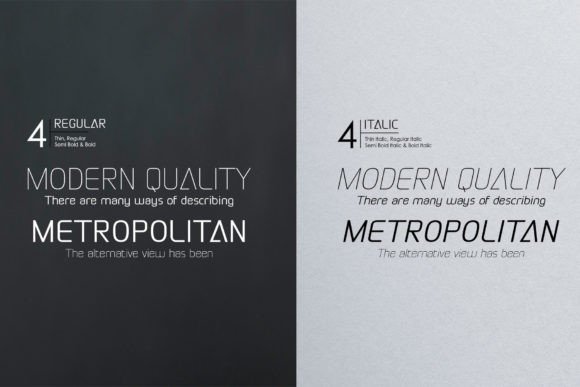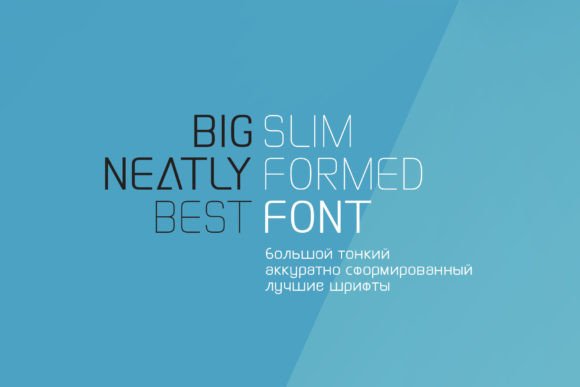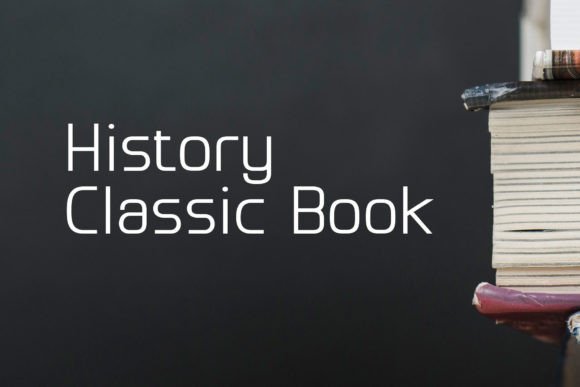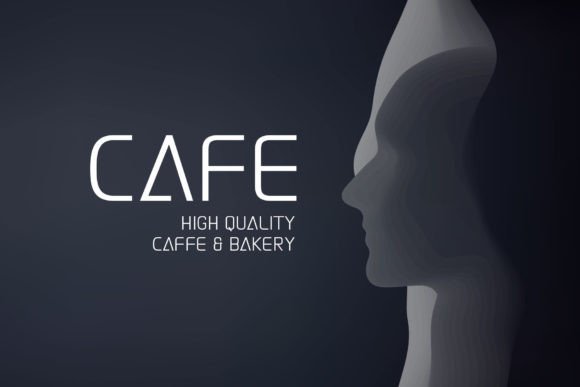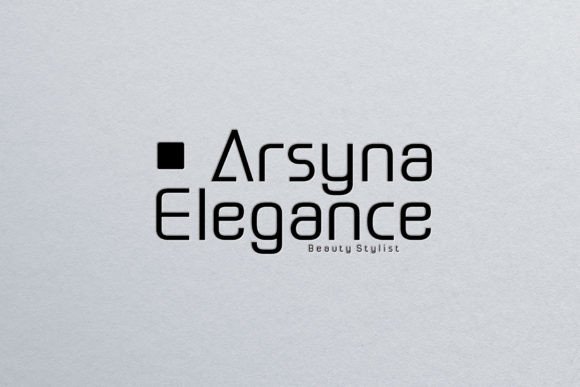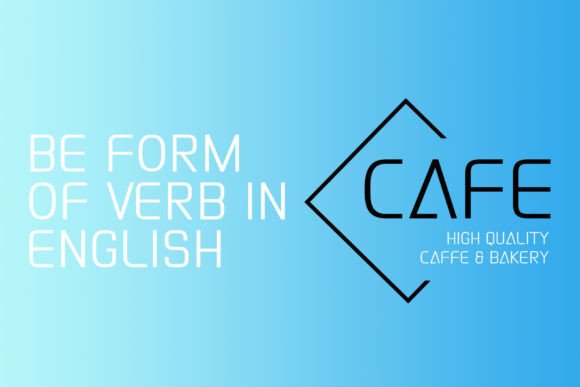
Elyzabeth Font: The Ultimate Choice for Clean and Simple Designs
In the world of typography, fonts play a crucial role in conveying the message and aesthetic of a design. With numerous fonts available, choosing the right one can be overwhelming, especially for designers and crafters. However, if you’re looking for a clean, simple, and versatile font, look no further than Elyzabeth Font. In this article, we’ll explore the features, benefits, and uses of Elyzabeth Font, and why it’s an excellent choice for your next design project.
What is Elyzabeth Font?
Elyzabeth Font is a sans-serif font that boasts a clean and simple design, making it perfect for a wide range of applications. Its minimalistic approach, characterized by straight lines and uniform strokes, gives it a timeless and elegant look. This font is designed to provide clarity and readability, making it an excellent choice for body text, headings, and titles.
Key Features of Elyzabeth Font
- Clean and Simple Design: Elyzabeth Font features a minimalist design that ensures clarity and readability.
- Timeless and Elegant: The font’s straight lines and uniform strokes give it a timeless and elegant look.
- Versatile: Elyzabeth Font is suitable for a wide range of designs, from websites to print materials.
- Modern and Professional: The font adds a touch of modernity and professionalism to any project.
Benefits of Using Elyzabeth Font
Elyzabeth Font offers several benefits that make it an attractive choice for designers and crafters. Some of the advantages of using Elyzabeth Font include:
- Improved Readability: The font’s clean and simple design ensures that your text is easy to read, even at small sizes.
- Enhanced Aesthetics: Elyzabeth Font adds a touch of modernity and sophistication to any design, making it perfect for projects that require a professional look.
- Flexibility: The font is suitable for a wide range of applications, from digital designs to print materials.
- Easy to Pair: Elyzabeth Font pairs well with other fonts, making it easy to create harmonious and visually appealing designs.
Uses of Elyzabeth Font
Elyzabeth Font is a versatile font that can be used in various design projects, including:
- Web Design: Use Elyzabeth Font as a body font or heading font to create clean and modern websites.
- Print Design: The font is perfect for print materials, such as brochures, flyers, and business cards.
- Branding: Elyzabeth Font can be used to create professional and modern logos, and brand identities.
- Packaging Design: The font is suitable for packaging design, including labels, tags, and packaging materials.
Tips for Using Elyzabeth Font
To get the most out of Elyzabeth Font, here are some tips to keep in mind:
- Use it as a Body Font: Elyzabeth Font is perfect for body text, as it provides excellent readability.
- Experiment with Font Sizes: The font looks great at various sizes, so experiment with different font sizes to find the one that works best for your design.
- Pair it with Other Fonts: Elyzabeth Font pairs well with other fonts, so don’t be afraid to experiment with different font combinations.
- Use it for Headings and Titles: The font is also suitable for headings and titles, as it adds a touch of modernity and sophistication.
| Font Name | Elyzabeth Font |
| Author | moriztype |
Elyzabeth Font is a clean, simple, and versatile font that offers clarity and readability. Its timeless design and modern look make it perfect for a wide range of designs, from websites to print materials. With its numerous benefits, uses, and tips for use, Elyzabeth Font is an excellent choice for designers and crafters looking to add a touch of modernity and professionalism to their projects.